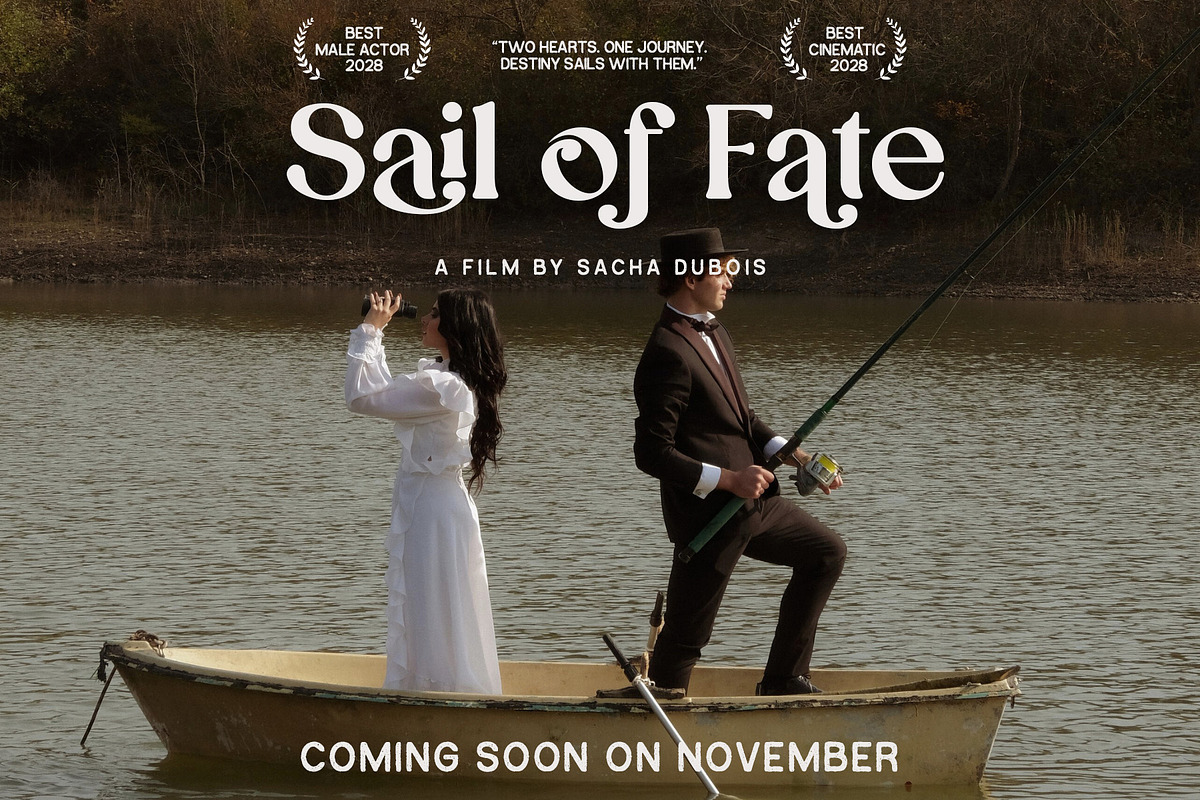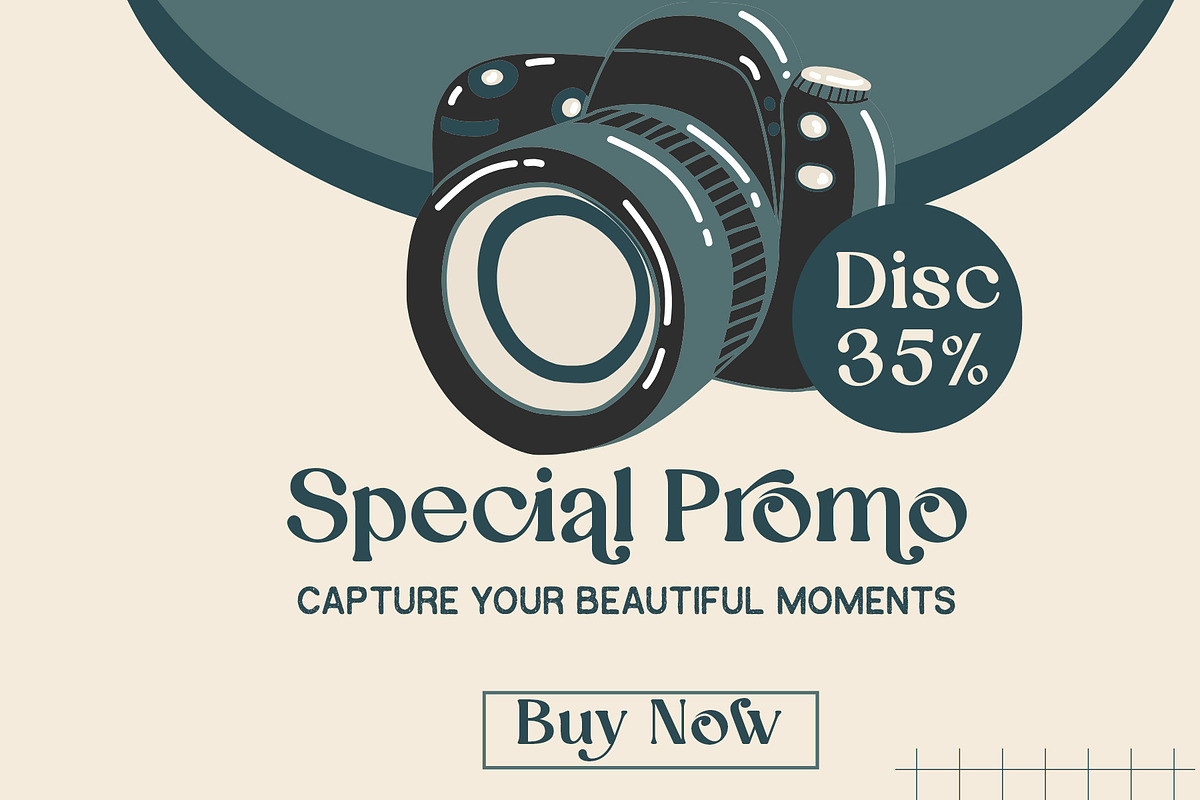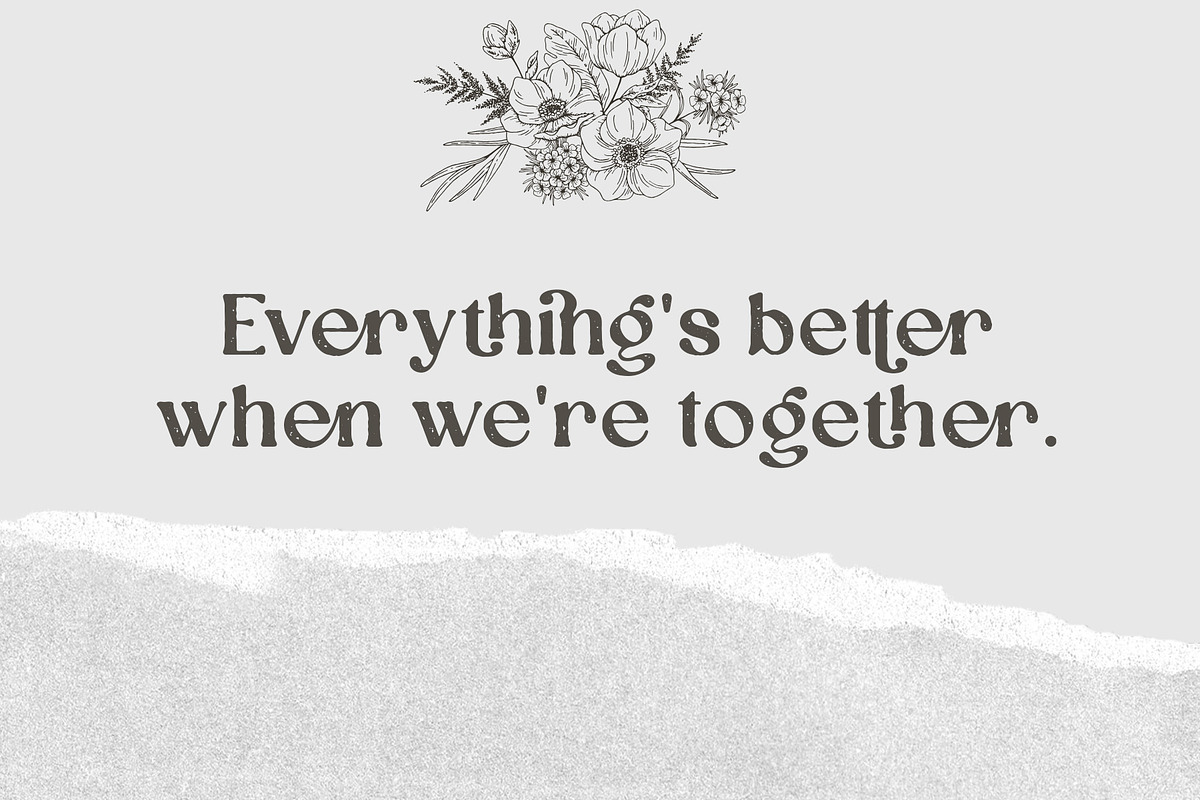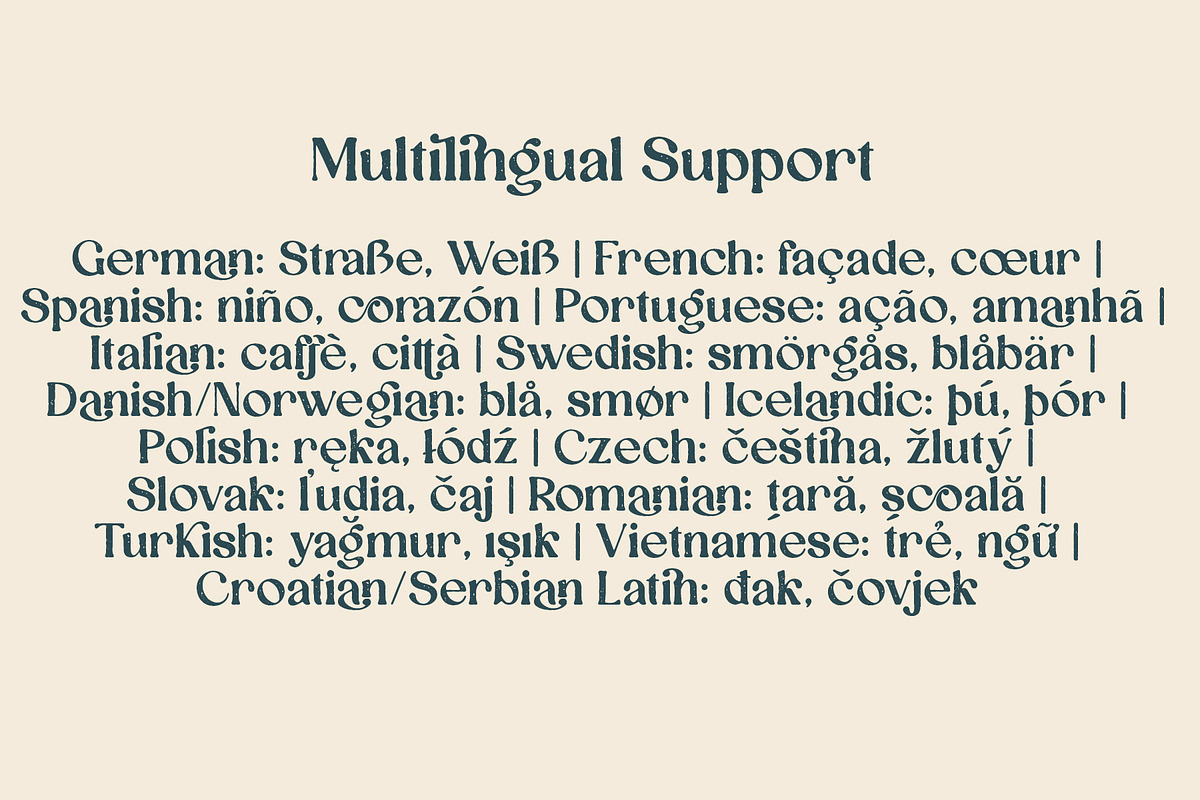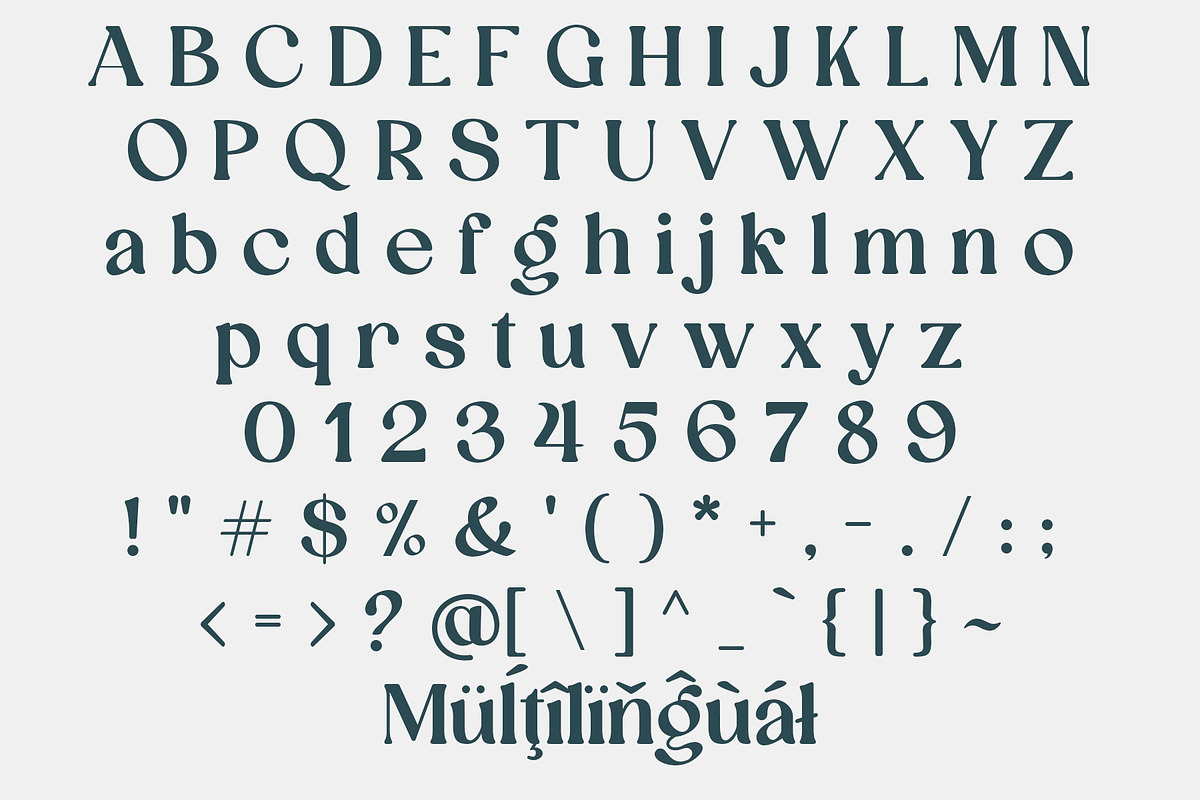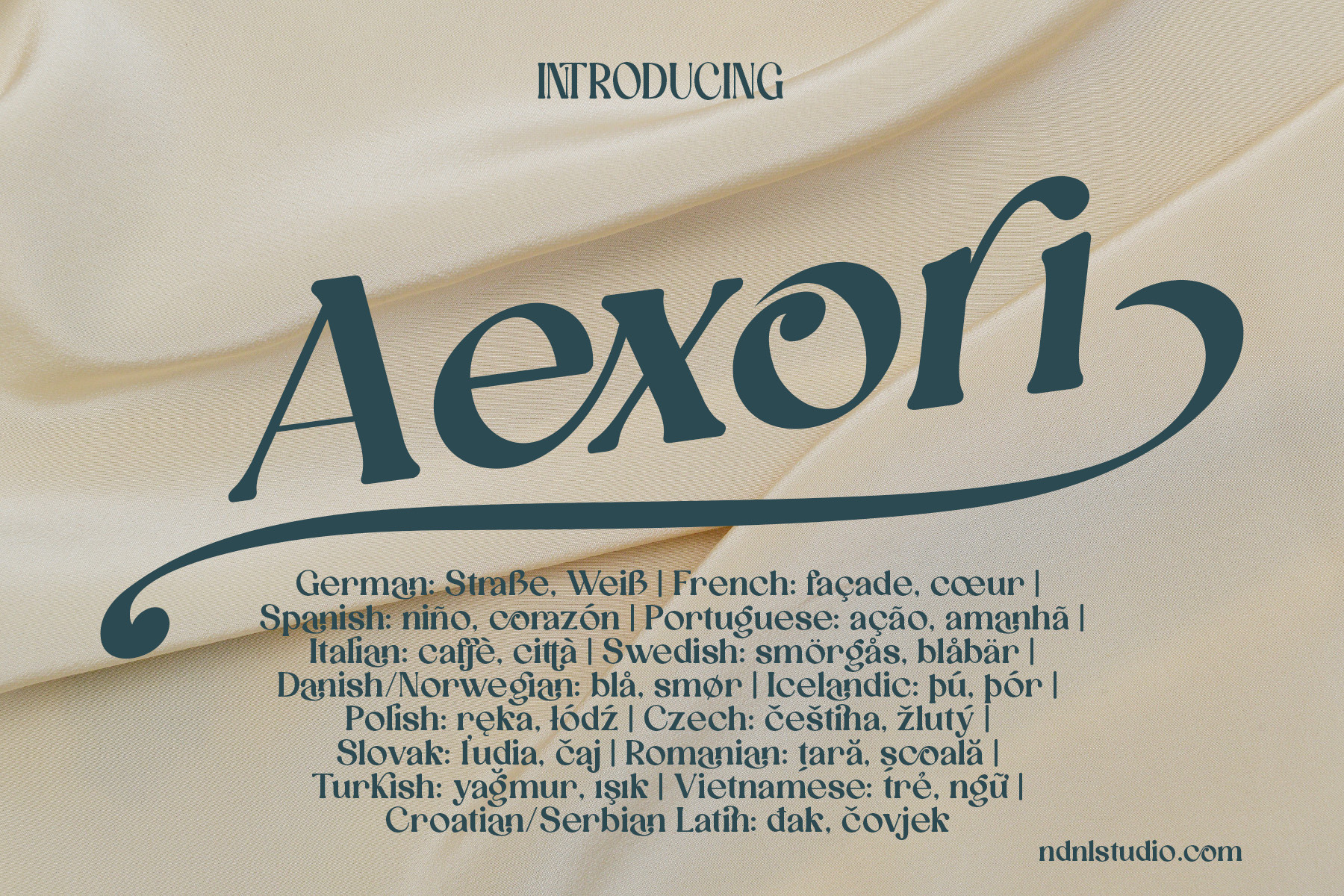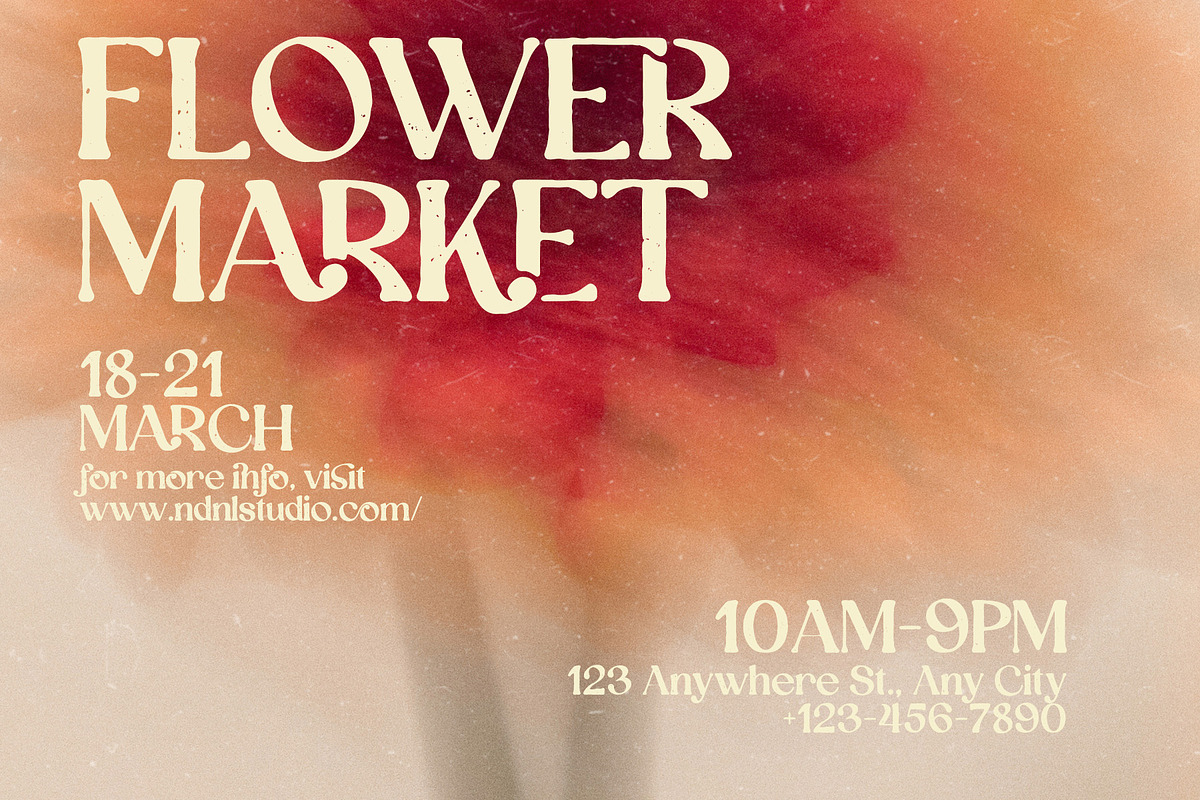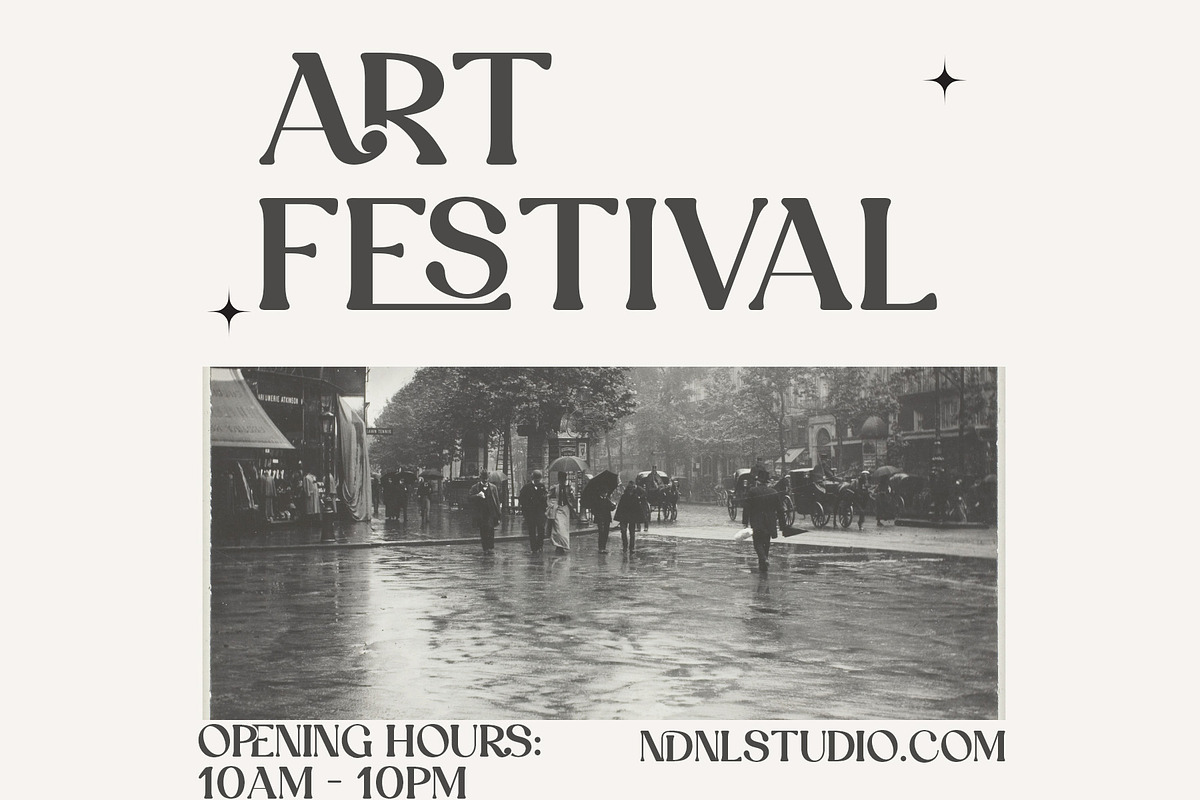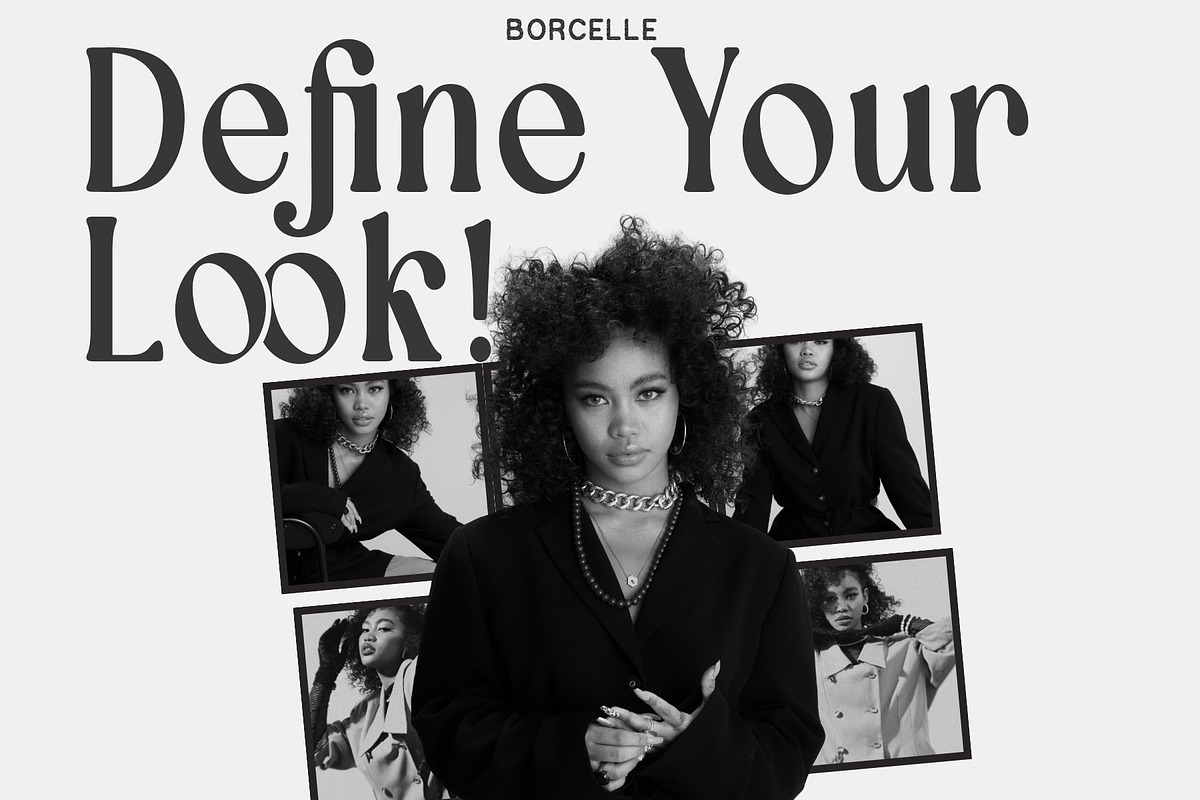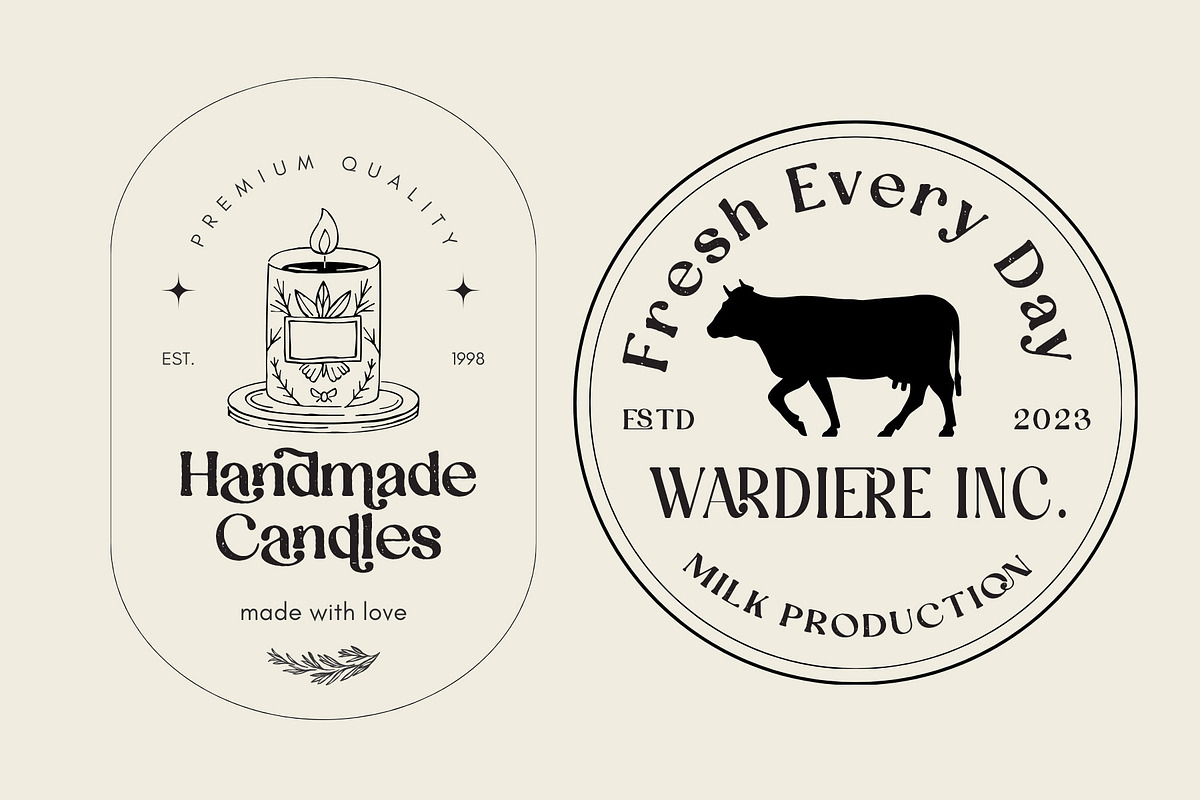
Aexori - Serif Font Family
Introducing Aexori! Aexori is an elegant serif typeface that blends classic charm with modern softness. Its graceful curves, refined rounded details, and artistic swashes create a luxurious and expressive visual presence. The flowing extended swash adds a distinctive and captivating touch to any composition.
Aexori is perfect for premium logos, fashion branding, cosmetic packaging, wedding stationery, magazine headlines, and vintage or romantic-themed projects. With extended Latin multilingual support, it allows seamless use across diverse markets.
If the software you are using does not fully support OpenType features (such as Stylistic Alternates), you can still access the decorative characters of the font using the following method:
Examples:
- Axx → Decorative A (if available)
- aX → Decorative a (if available)
And also:
- AxX → Decorative A2 (if available)
- aXX → Decorative a2 (if available)
- aXXX → Decorative a3 (if available)
To separate ligatures: Insert the shortcut xXx between two characters.
- ab → axXxb → a b
Swash:
- xV → Swash1
- xVV → Swash2
- xB→ Swash4
- xBB→ Swash5